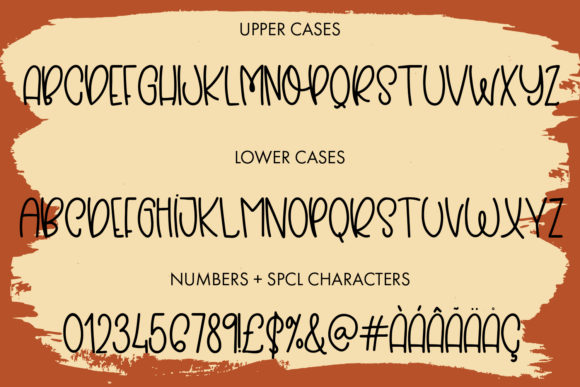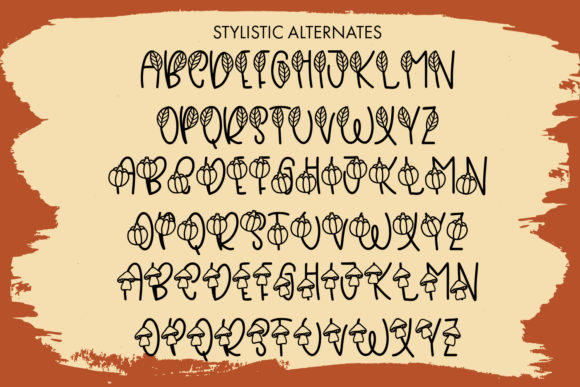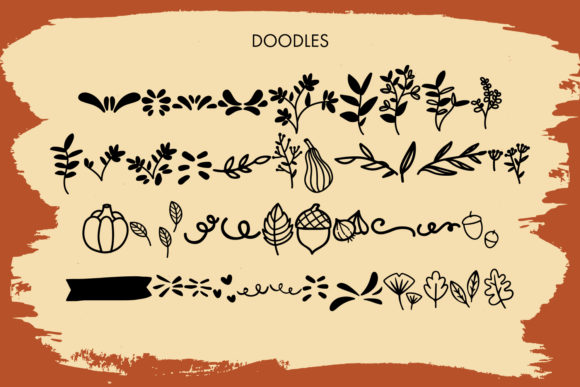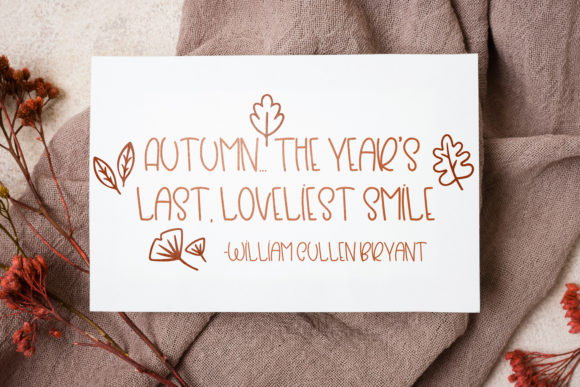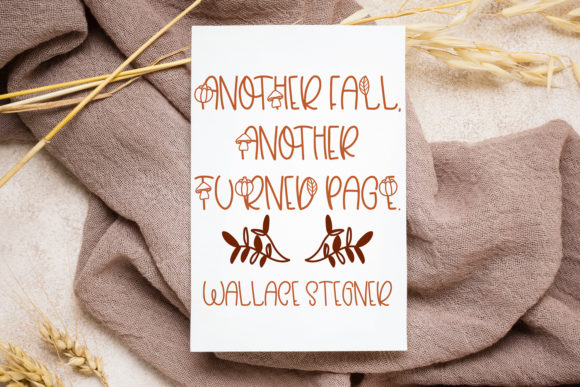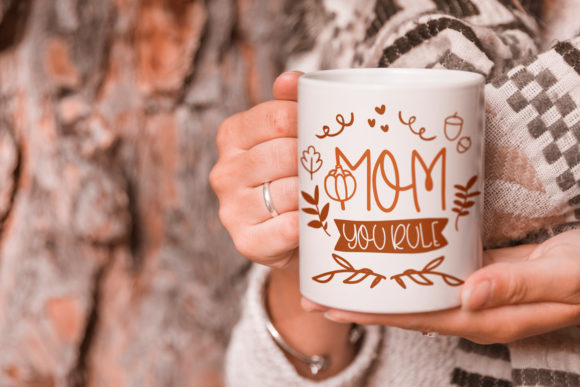
Cozying Up with Fall Vibes: The Perfect Font for Your DIY Projects
As the crisp autumn air sets in, I find myself rummaging through old craft supplies, dreaming up new DIY projects to cozy up my home. There’s something magical about this season that sparks creativity and inspires us to get crafty. And what’s a fall project without a font that perfectly captures the essence of the season?
Enter Beaver Moon Font, a charming handwritten font that’s sure to become your go-to for all things fall. Its quirky charm and whimsical feel make it the perfect companion for doodles, illustrations, and any other creative project you can think of. Whether you’re a seasoned designer or a crafty enthusiast, Beaver Moon Font is a valuable addition to your toolkit, adding a touch of warmth and personality to your designs.
With Beaver Moon Font, you’ll be able to create gifts, decorations, and other DIY projects that will make your loved ones feel all the cozier. So why not give it a try and see what magic you can create this fall season?
Beaver Moon Font Key Features
- Font Family: Beaver Moon Font is a unique, hand-drawn script font designed to evoke a sense of elegance and sophistication.
- Font Size: The font is available in 5 different font sizes, ranging from 48pt to 192pt, allowing for versatility in design and layout.
- Resolution: Designed to be scalable, Beaver Moon Font is suitable for use at high resolutions, making it ideal for print and digital applications.
- Unique Characteristics: The font features a distinctive, hand-crafted look with subtle imperfections, giving it a unique and organic feel.
- Character Set: The font includes a comprehensive character set, including uppercase and lowercase letters, numerals, and punctuation marks, making it suitable for a wide range of applications.
Designer Review: Beaver Moon Font
I recently had the chance to work with the Beaver Moon Font, and I must say it’s an interesting mix of modern and vintage elements. Here are my thoughts on what works well and what doesn’t.
- Unique blend of modern and vintage styles: Beaver Moon Font brings a fresh take on traditional typography with its sleek and modern twists.
- Good legibility: The font is well-designed for body text, making it suitable for long-form content and articles.
- High-resolution support: Beaver Moon Font scales well on high-resolution displays, making it perfect for digital media.
- Limited customization options: As a designer, I prefer fonts with more flexibility and customization options.
- May not be suitable for headlines: While Beaver Moon Font is great for body text, its subtle design may not be attention-grabbing enough for headlines.
- Not ideal for bold or dramatic designs: The font’s understated style may not be the best fit for designs that require a more dramatic or bold look.
Beaver Moon Font is a solid choice for projects that require a clean, modern, and elegant look. While it may have some limitations, it’s a great option for designers who want to add a touch of sophistication to their work.
Getting the Most Out of Beaver Moon Font
To get the most out of Beaver Moon Font, consider the following tips:
- Use it for rustic or outdoor-themed designs.
- Combine it with earthy colors for a natural look.
Beaver Moon Font is commonly used for:
- Outdoor event invitations.
- Rustic wedding decorations.
- Environmental or conservation-themed designs.
Alternative Fonts to Beaver Moon Font
Wild West Font
Wild West Font is a distressed, western-inspired font perfect for designs that require a rugged, vintage feel. It’s ideal for use in posters, advertisements, and other materials that need to convey a sense of the Wild West. Compared to Beaver Moon Font, Wild West Font has a more rustic, weathered look that’s perfect for designs that need to evoke a sense of the American frontier.
Luminari Font
Luminari Font is a elegant, cursive script font that’s perfect for use in designs that require a touch of sophistication and elegance. It’s ideal for use in invitations, wedding stationery, and other materials that need to convey a sense of refinement and luxury. Compared to Beaver Moon Font, Luminari Font has a more refined, polished look that’s perfect for designs that need to evoke a sense of high-end quality.